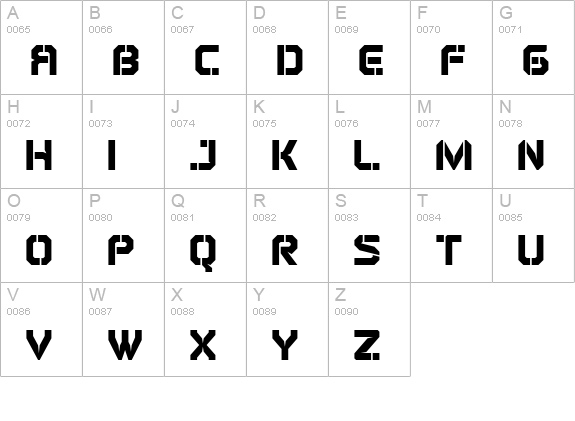
Introducing Airbrake font, a stylish and modern typeface that exudes elegance and sophistication. With its sleek lines and contemporary design, Airbrake font is perfect for adding a touch of class to any project. Whether you're creating a logo, designing a website, or crafting a poster, Airbrake font will elevate your work to the next level. The best part? Airbrake font is completely free to download at FontsMarket.com. That's right, you can enhance your projects with this stunning font without spending a dime. So why wait? Download Airbrake font today and take your designs to new heights.